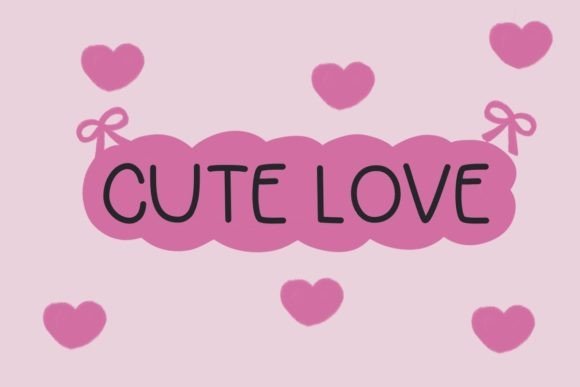
The Joy of Typography: Discovering Cute Love Font
You know that moment when you stumble upon the perfect font for a project and your creative juices start flowing? It’s like finding the missing piece of a puzzle, and suddenly, everything falls into place. For designers, typography is an essential element that can make or break a design. And when it comes to conveying a sense of warmth and friendliness, Cute Love Font is a game-changer.
This simple yet adorable handwritten font is designed to bring a smile to your face and add a touch of personality to your work. With its flexibility and versatility, Cute Love Font is perfect for a wide range of contexts, from crafting and digital designing to presentations and social media graphics.
Cute Love Font Key Features
- Unique Characteristics: Cute Love Font features a playful, handwritten style with a touch of whimsy, making it perfect for creating eye-catching and romantic designs.
Cute Love Font Review
I recently had the chance to work with the “Cute Love Font” and here’s my honest review.
- Whimsical and playful feel: The font has a lovely, carefree vibe that’s perfect for romance-themed projects or social media graphics.
- High-quality glyphs: The font includes a wide range of characters, including accented letters and punctuation, making it suitable for everyday use.
- Customization options: The font offers a range of stylistic sets and ligatures, allowing for some flexibility in terms of design.
- Limited robustness: The font may not be suitable for large-scale or high-stress applications, as it can be prone to breaking or distorting at certain font sizes.
- Compatibility issues: Some users have reported compatibility problems with certain operating systems or software, which may require additional troubleshooting.
The “Cute Love Font” is a charming and versatile font that’s perfect for projects where a playful, romantic feel is desired. While it has some limitations, it’s still a great choice for designers and non-designers alike. With proper use and care, this font can add a touch of whimsy to any design.
Tips for Getting the Most Out of Cute Love Font
Use Cute Love Font to add a touch of whimsy and romance to your designs. Pair it with bold fonts for a striking contrast. Experiment with different font sizes and colors to create a visually appealing effect.
Cute Love Font is perfect for:
- Valentine’s Day cards and gifts
- Wedding invitations and decorations
- Love-themed social media posts and graphics
- Personalized gift tags and labels